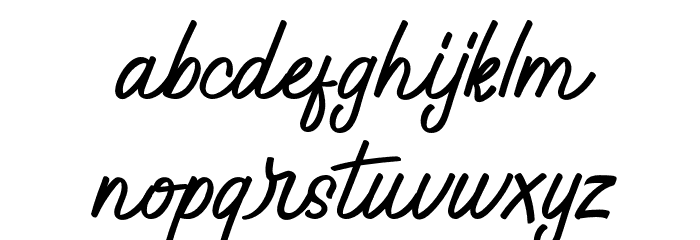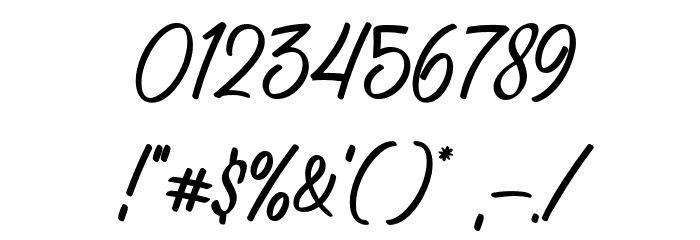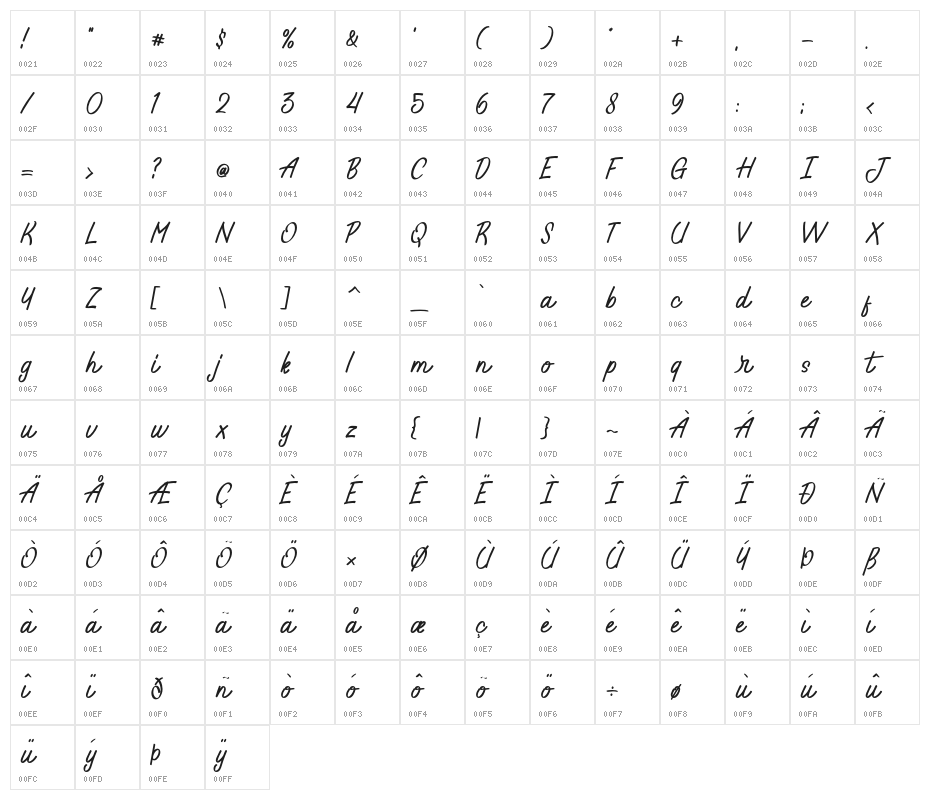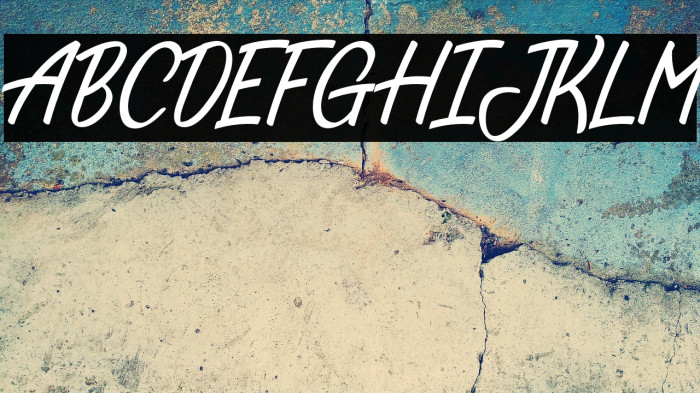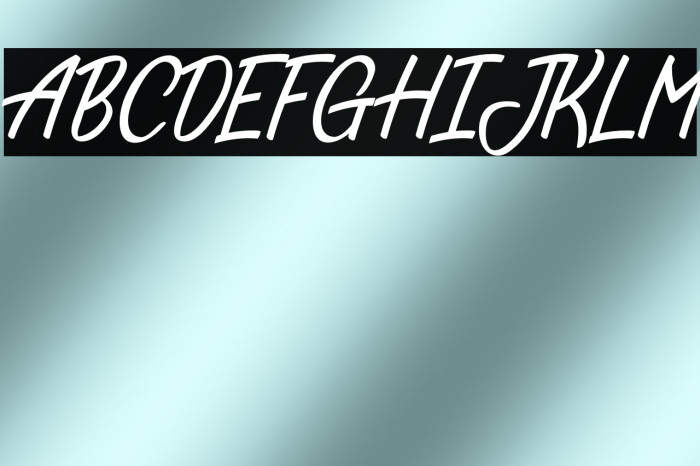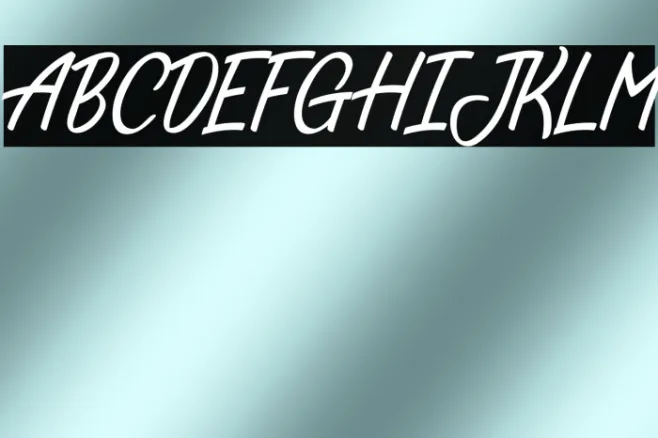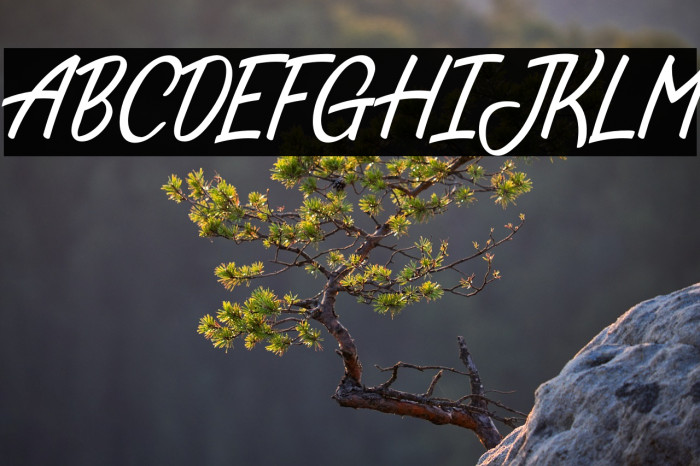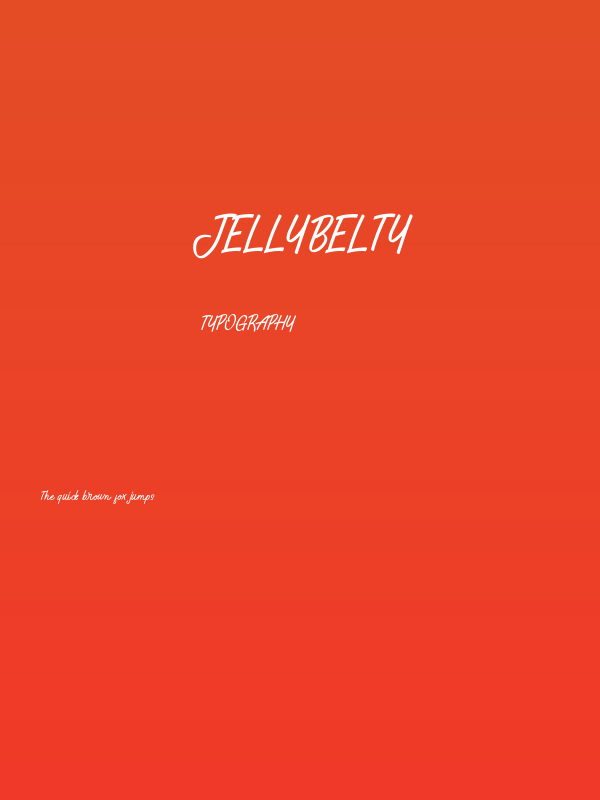
JellyBelty Font
This font features a playful and energetic script style, characterized by its fluid, cursive strokes and a sense of motion. The uppercase letters are bold and slightly slanted, giving a dynamic feel, while the lowercase letters maintain a consistent flow with rounded edges. The numerals are clear and legible, matching the overall style of the alphabet. Special characters are integrated seamlessly, maintaining the whimsical and lively aesthetic. The font's design is reminiscent of casual handwriting, making it approachable and friendly.
A playful, cursive script font with fluid strokes and a dynamic feel.
- Proposed Projects: Ideal for greeting cards, playful branding, invitations, and social media graphics.
- Use Case: Logos, Headlines, Invitations